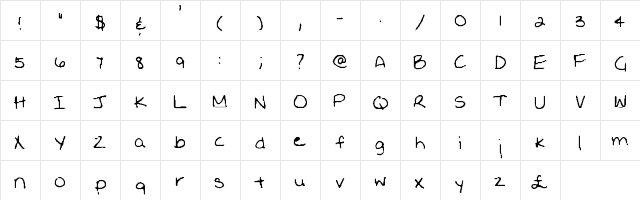
Melody Regular
Design Context for Melody Typeface
Melody takes a measured approach to typography — its balanced proportions and neutral character make it a reliable workhorse for both digital and print work.